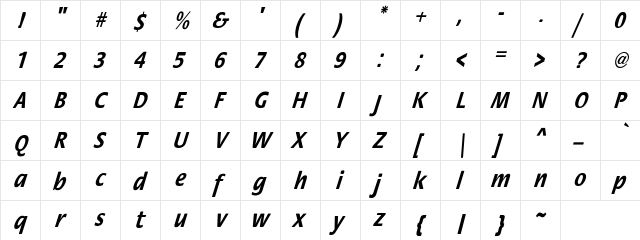
Rosamunde Cond Obl Bld Regular
Design Context for Rosamunde Cond Obl Bld Typeface
Rosamunde Cond Obl Bld is a composed and adaptable typeface that performs quietly and consistently across a wide range of design contexts. The condensed width makes it efficient for tight spaces without sacrificing legibility.